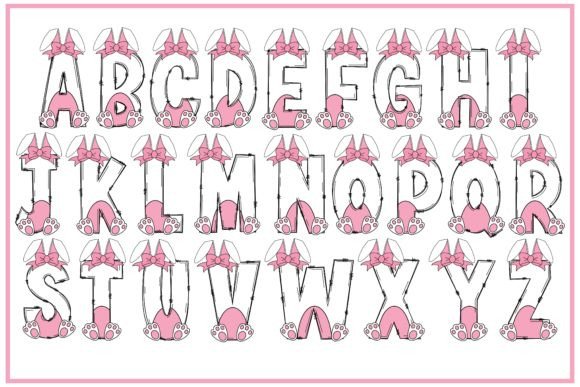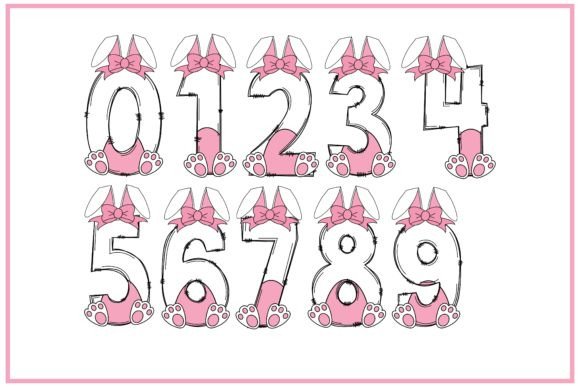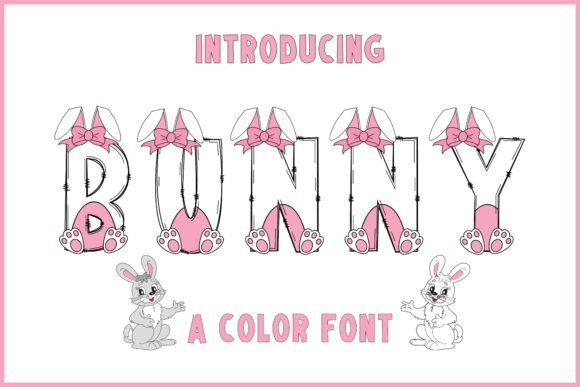
The Easter Bunny of Fonts: A Comprehensive Guide to Bunny Font
I’ll never forget the time I was working on an Easter-themed project for a client, and I just couldn’t find the perfect font to match the playful, springtime vibe. The client wanted something that would make their Easter egg hunt flyers, social media posts, and decorations stand out, but I was stuck. That was until I stumbled upon the adorable Bunny font. ✨
This full-color font has been a game-changer for my spring-related design projects, and I’m excited to share its charm with you. In this article, we’ll dive into what makes Bunny font so special, its features, and how to make the most of it in various design platforms.
An Honest Review of Bunny Font
- ✨ Vibrant and Playful Design: Bunny font is a sweet decorative font that features brightly designed lettering, making it perfect for Easter or Spring-themed projects.
- ✅ Easy to Read: Despite its decorative nature, the font remains clear and easy to read, even in smaller sizes.
- 💡 Versatility: It can be used for a wide range of projects, from digital graphics to print materials.
While Bunny font is fantastic, there are a few things to keep in mind:
- 🤔 Limited Use Cases: Given its Easter/Spring theme, it might not be the best choice for other types of projects.
- ⚠️ Color Limitations: As a full-color font, it might not work well in situations where a single-color or monotone scheme is required.
The Backstory of Bunny Font
Bunny font was created with the intention of capturing the playful and joyful spirit of Easter and Spring. The designer aimed to create a font that was not only visually appealing but also versatile enough to be used in various design projects. The result is a font that’s both sweet and impactful, perfect for adding a touch of springtime charm to any design.
Q: What makes Bunny font unique?
A: Bunny font is unique due to its full-color design and Easter/Spring theme, making it stand out from more traditional fonts.
Q: Does Bunny font support OpenType features?
A: Yes, Bunny font supports OpenType features, allowing for a range of stylistic alternates and glyphs to enhance your designs.
Q: Is Bunny font suitable for body text?
A: While Bunny font is beautiful, it’s more suited for headings and titles due to its decorative nature. For body text, a clearer font might be more appropriate.